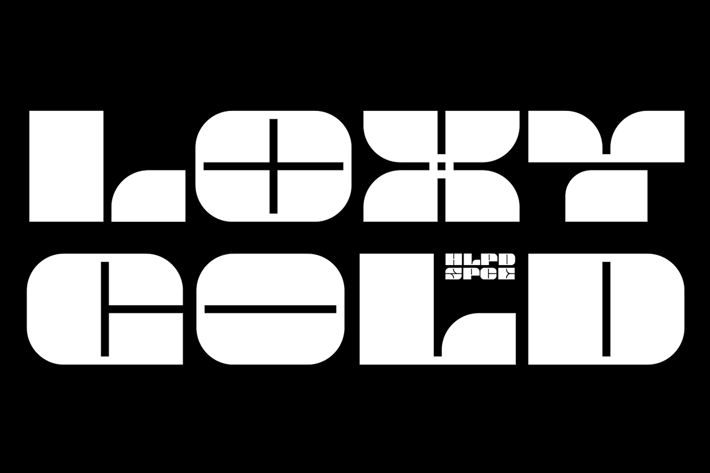
HS Loxy Gold - A Stencil Bold Display Font
Introducing, HS Loxy Gold A Stencil Bold Display Font with the strong touch. It looks heavy and boldy that can be used for all your project needs.This font can be used at any time and on any project.
So, HS Loxy Gold Font can't wait to give its touch to all your design projects such as magazine, book, poster design, printing, personal branding, promotional materials, logotype, product packaging, etc.